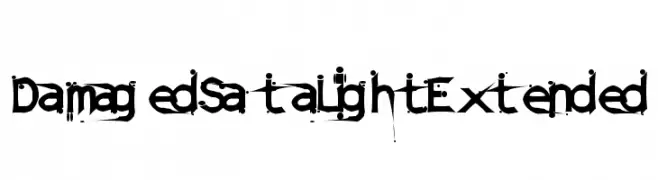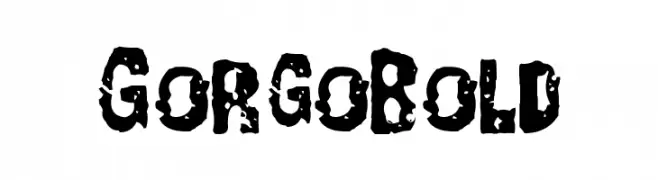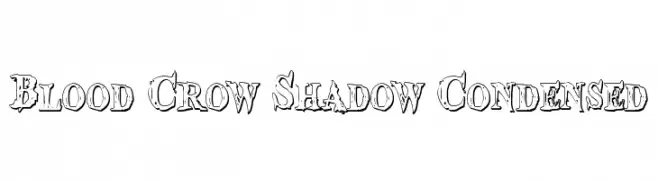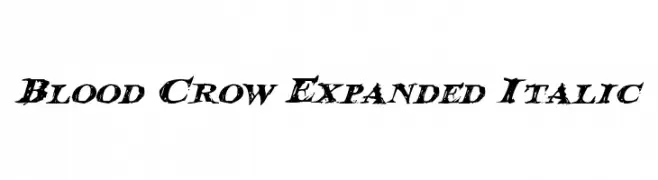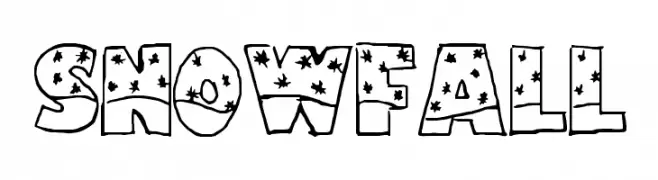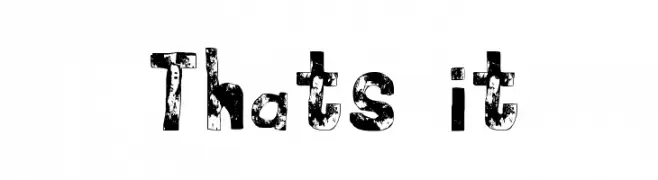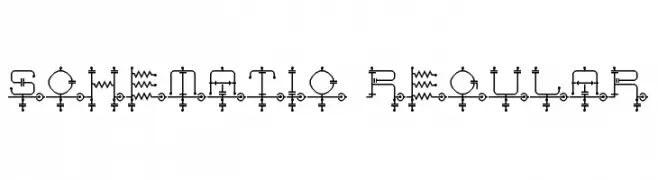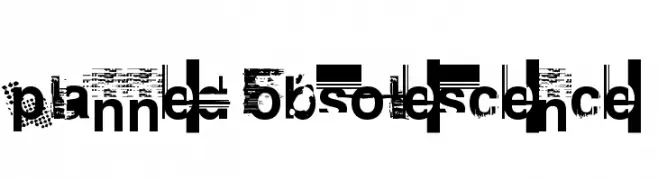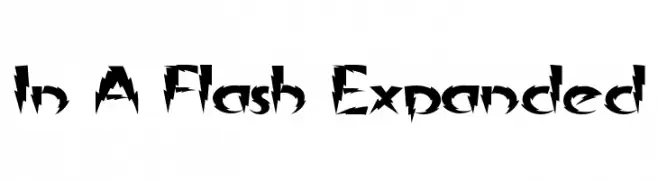
A decorative and artistic font with high contrast and intricate details.
A bold, distressed font with a rugged, textured appearance.
A bold, distressed font with a rebellious, grunge aesthetic.
A bold, distressed font with a shadow effect and condensed style.
A bold, italicized font with a distressed, grunge style and expanded width.
A distressed, grungy font with chaotic, worn letterforms.
A bold, angular font with sharp, dynamic edges for a striking visual impact.